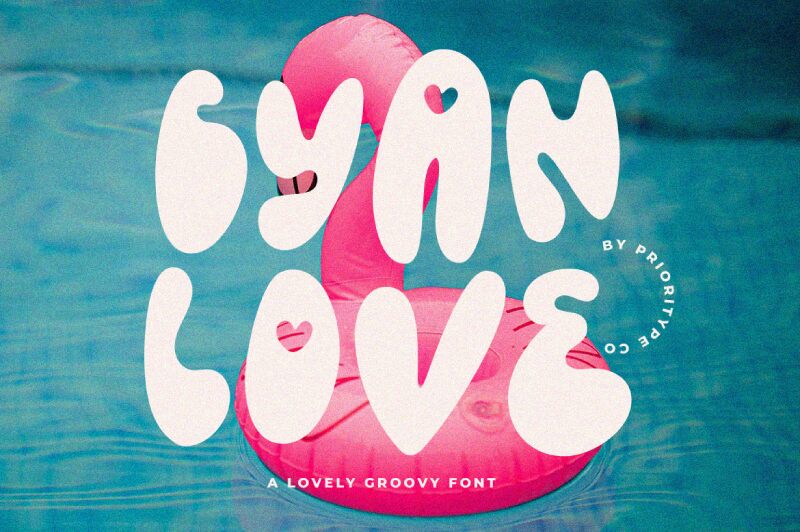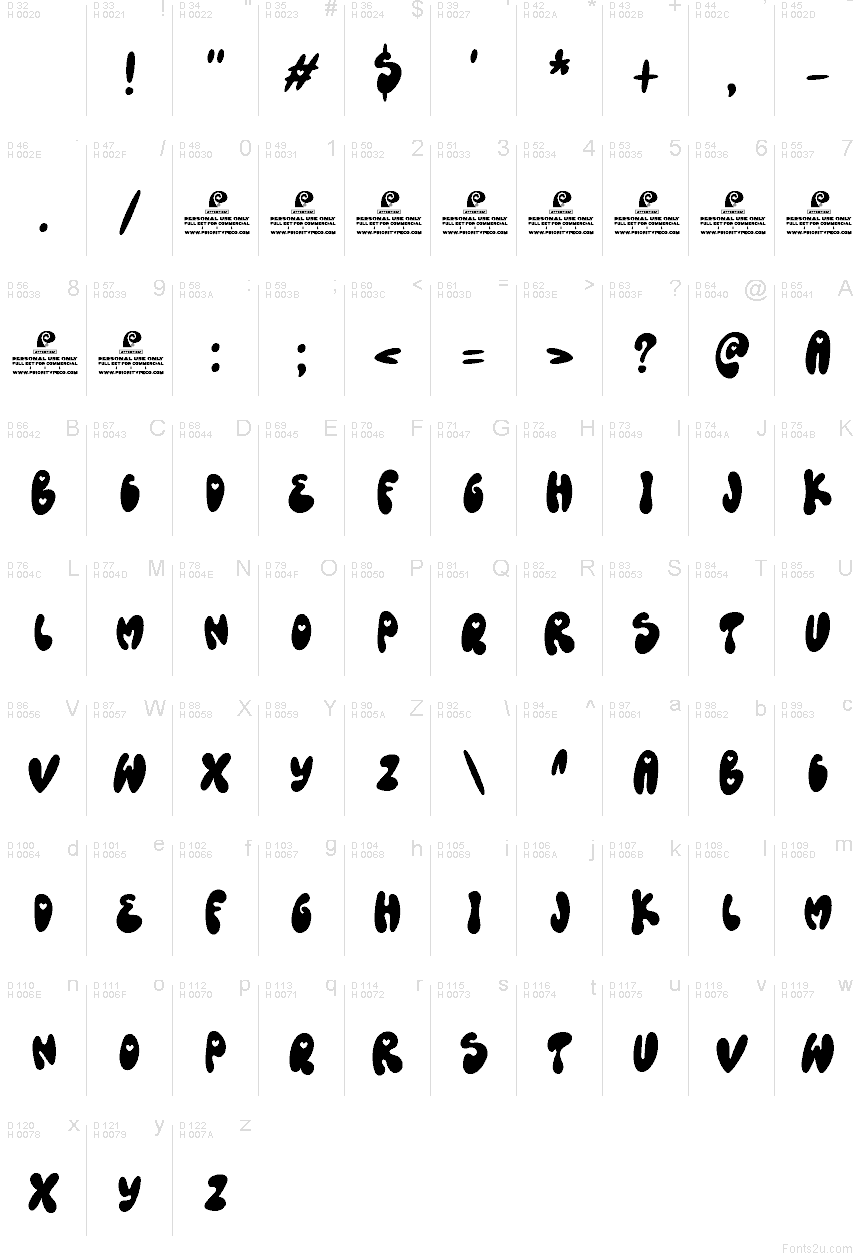
Cyan Love DEMO
Cyan Love font by Prioritype Co is a free Valentine holiday typeface that looks like it was piped onto the page with thick, glossy icing. Its bubbly, rounded shapes and playful heart details feel soft and huggable, giving every word a warm, hand-made charm. The letters sit close and cozy, creating a bold, chunky rhythm that reads clearly even in short, punchy phrases.
Using Cyan Love, this free font shines on Valentine cards, romantic party invitations, stickers, themed social posts, packaging for sweets, and cute event posters. The chubby silhouettes instantly signal love and celebration without needing extra graphics. For a balanced look, pair Cyan Love for headlines with a clean sans serif in smaller text, and let this joyful typeface stay big and bold where it can really show off its candy-coated personality.